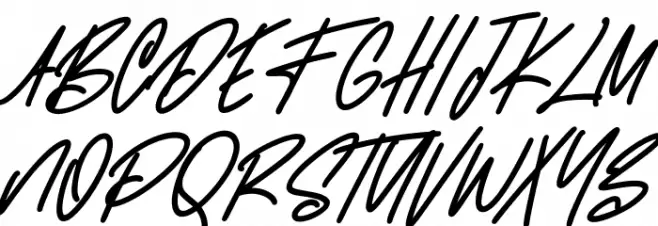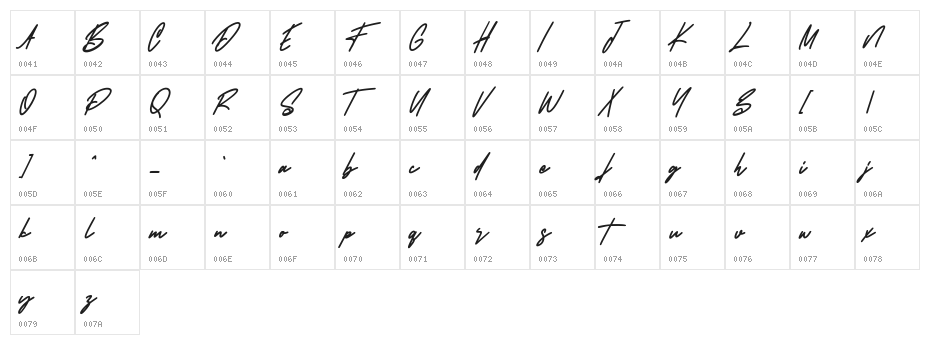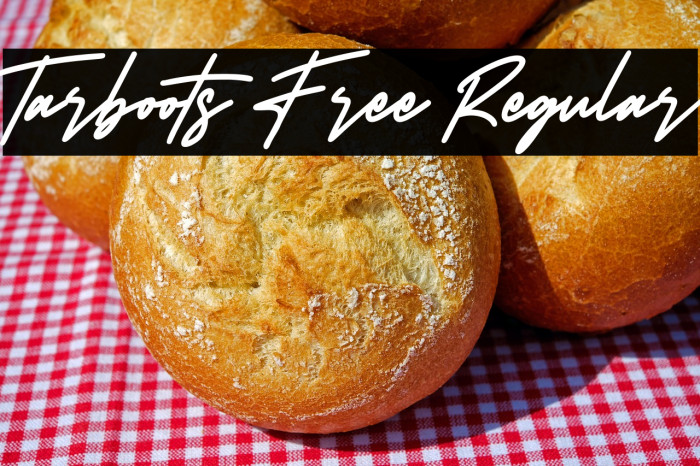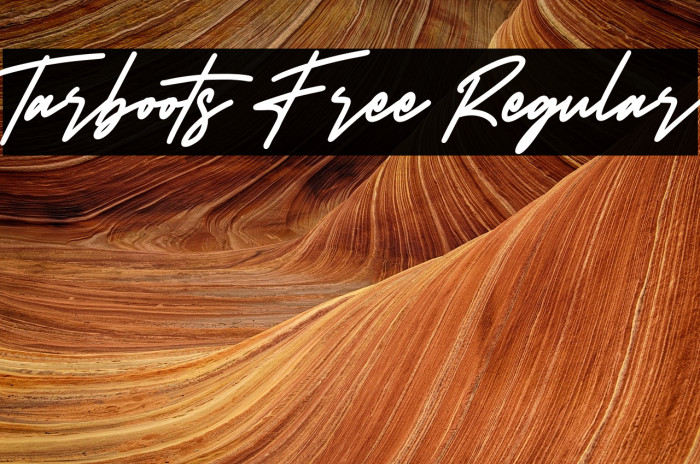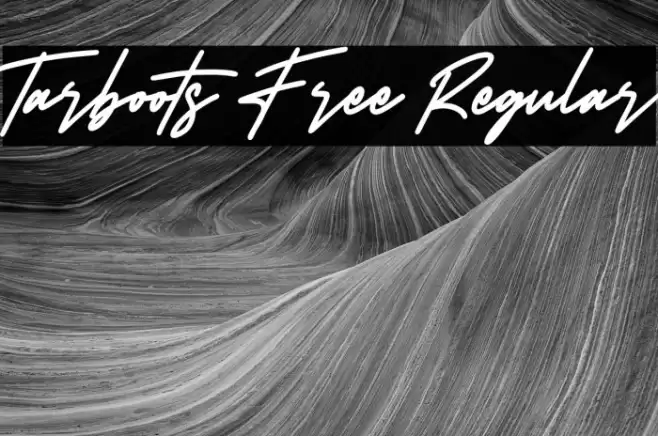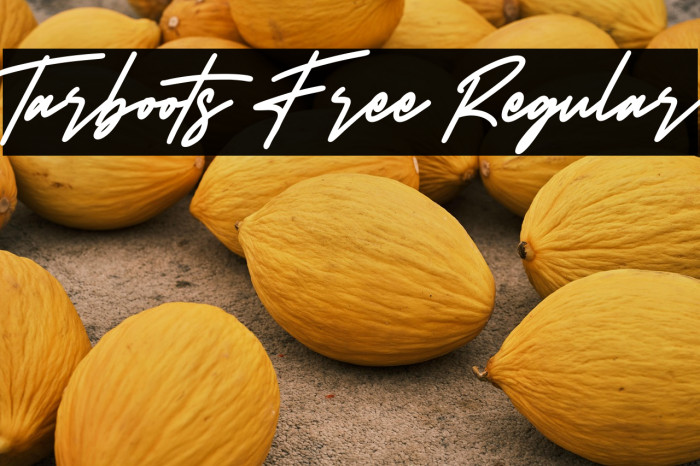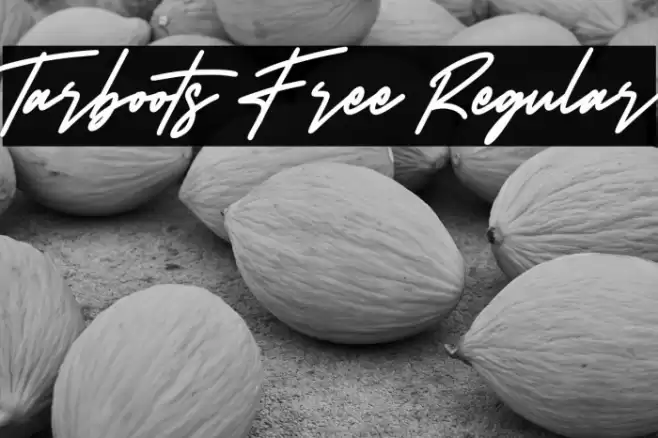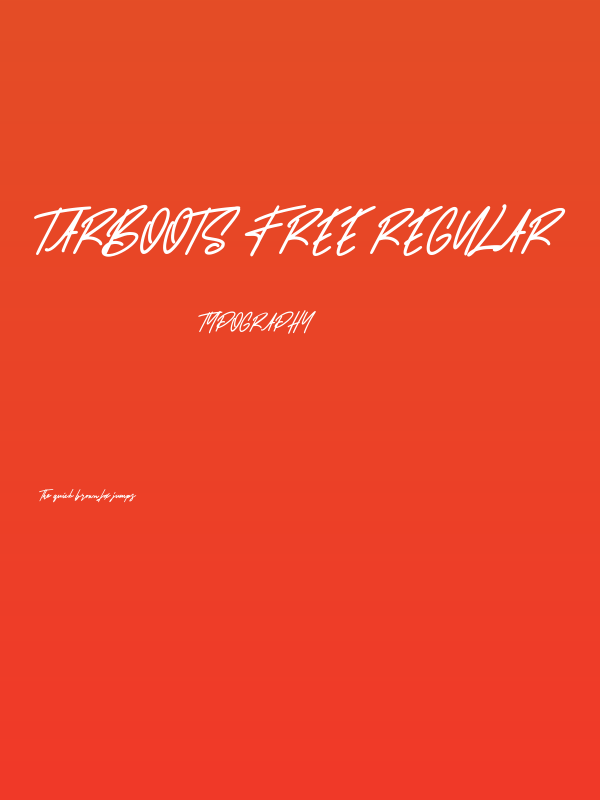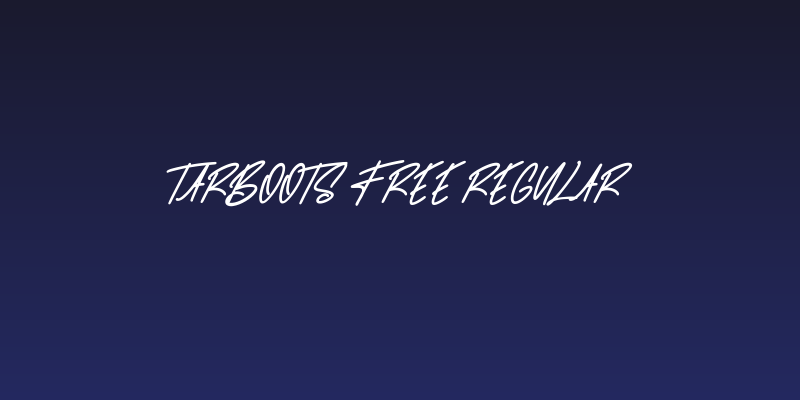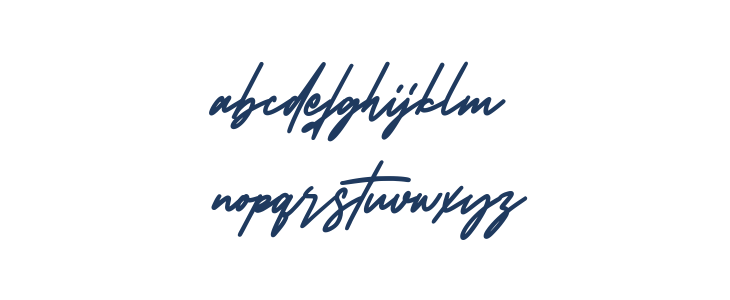
Tarboots Free Regular Font
Tarboots Free Regular Description
This font features a dynamic and energetic script style, characterized by its fluid and connected letterforms. The strokes are bold and confident, with a slight slant that adds to its casual and handwritten feel. The uppercase letters are particularly striking, with exaggerated loops and curves that give the font a distinctive flair. The lowercase letters maintain a consistent flow, enhancing readability while retaining the font's expressive nature. This style is perfect for projects that require a personal touch, such as invitations, branding, or social media graphics.
| Proposed Projects | Ideal for invitations, branding, social media graphics, and any project needing a personal, expressive touch. |